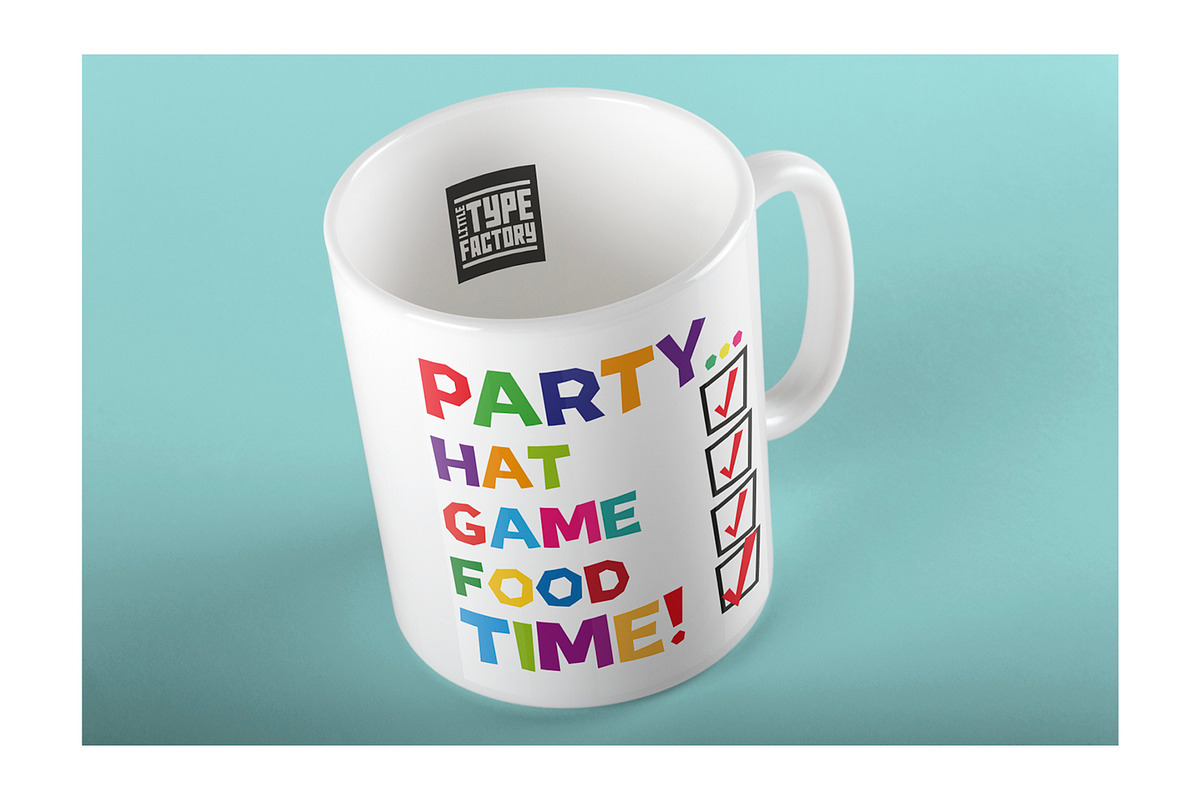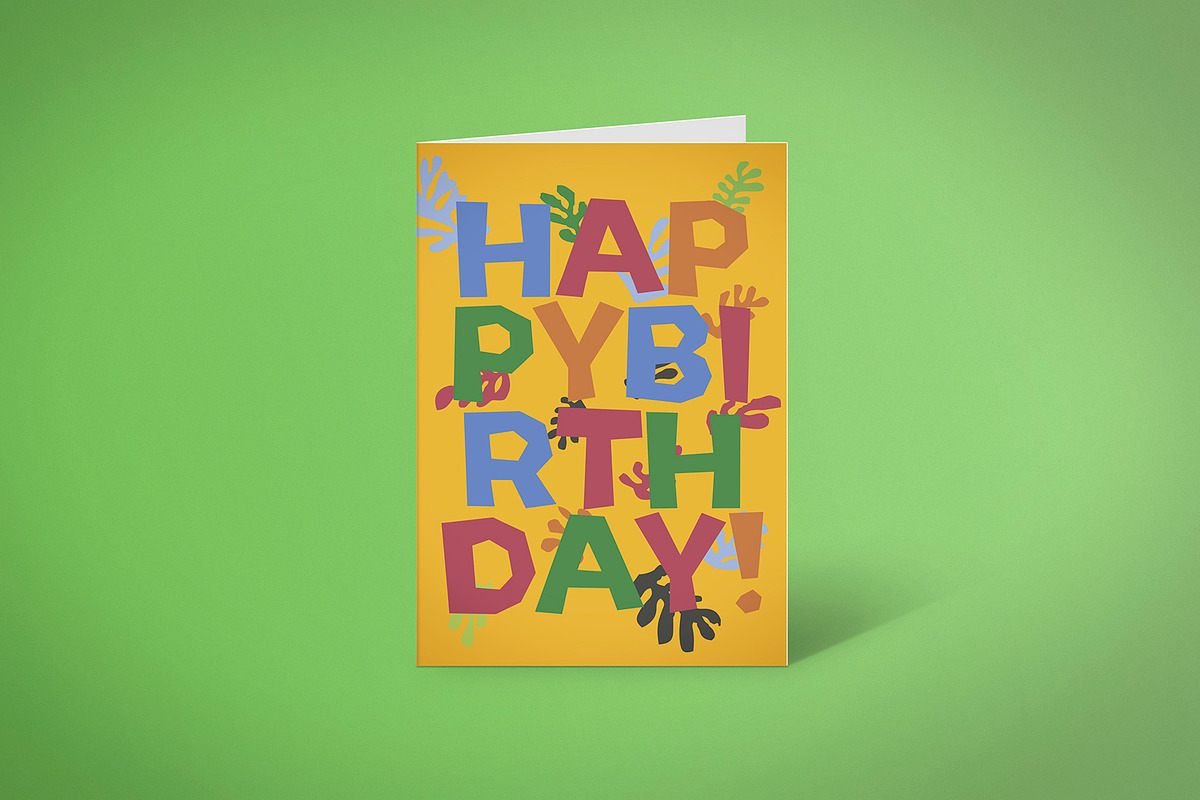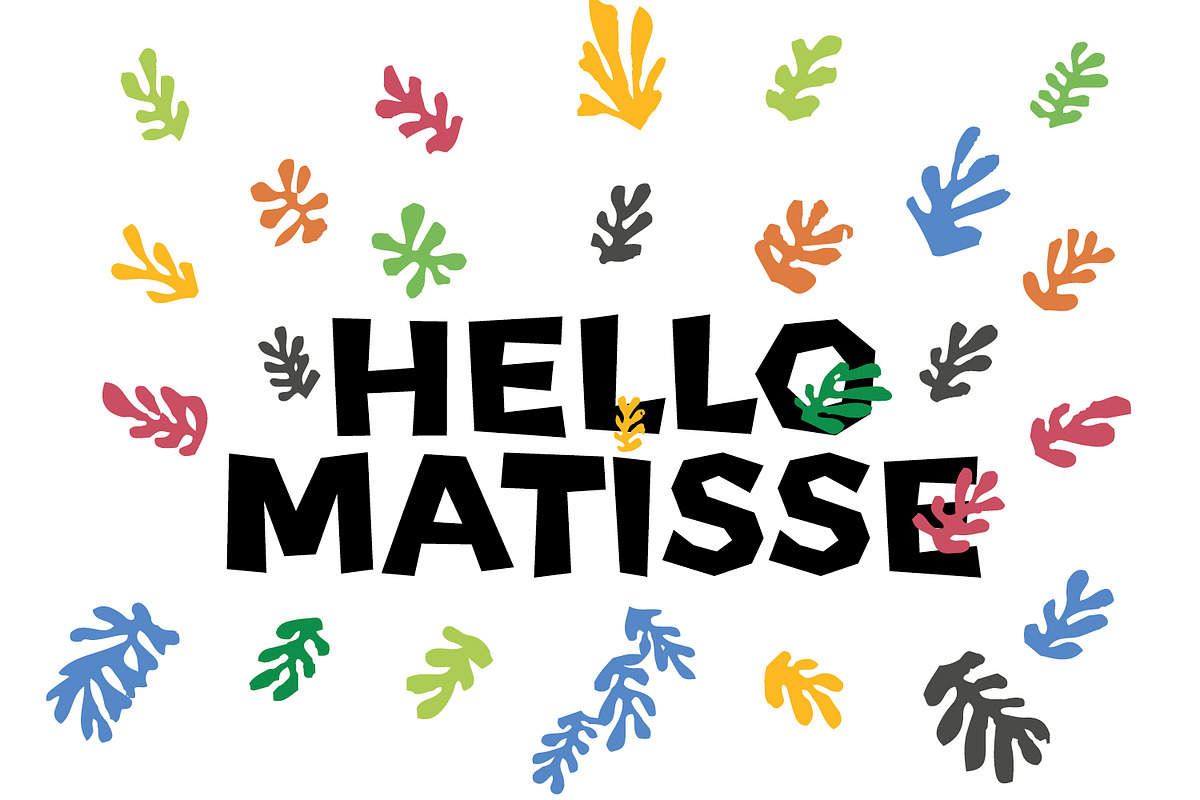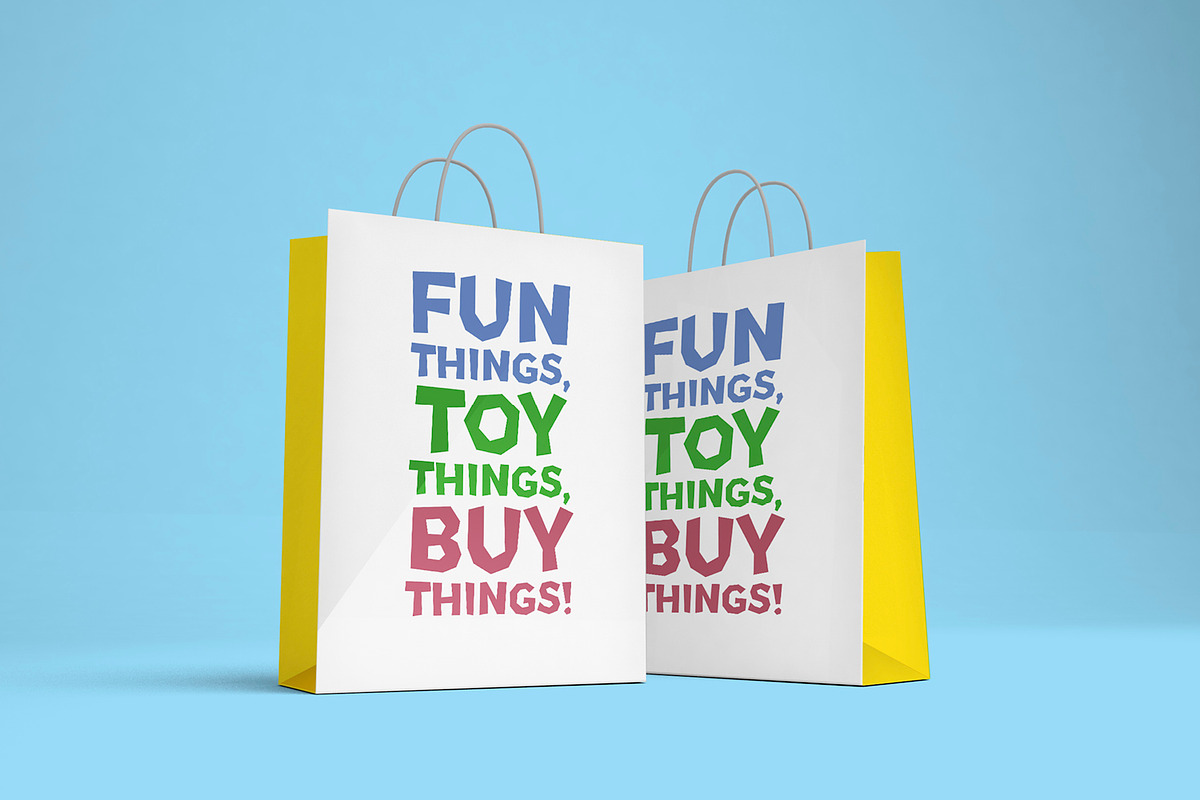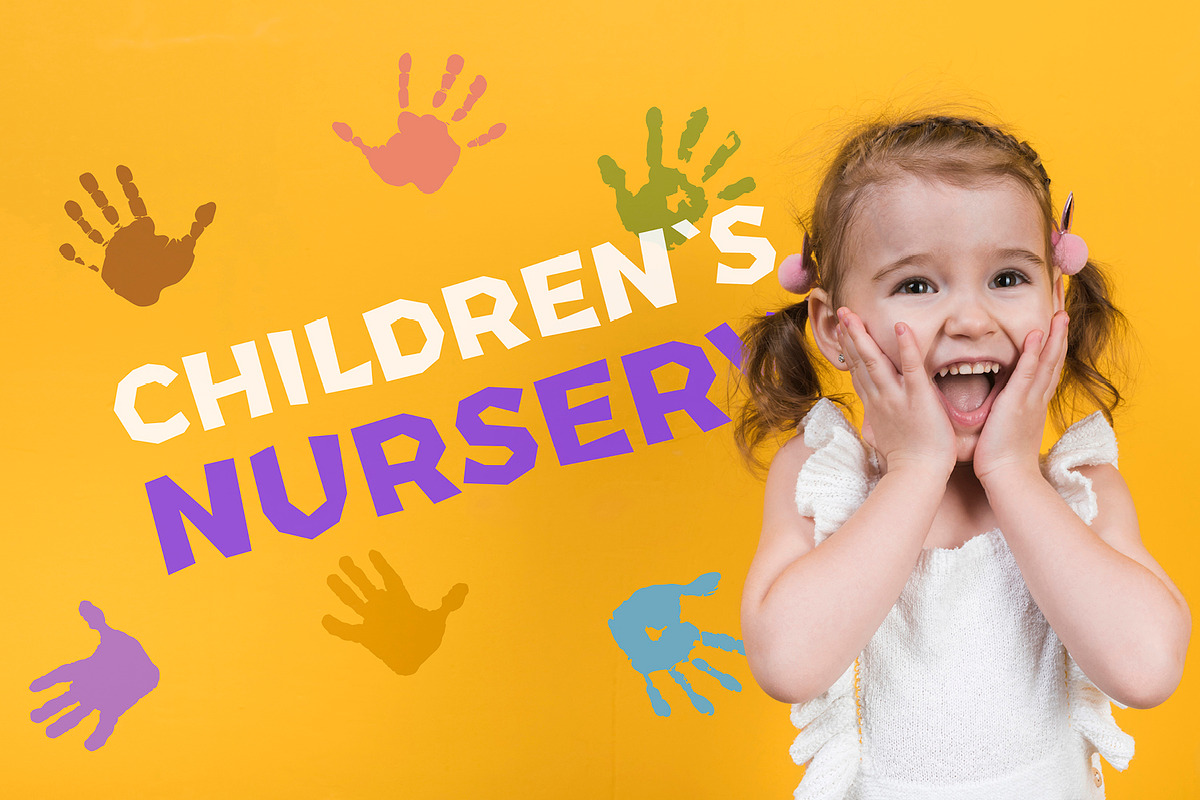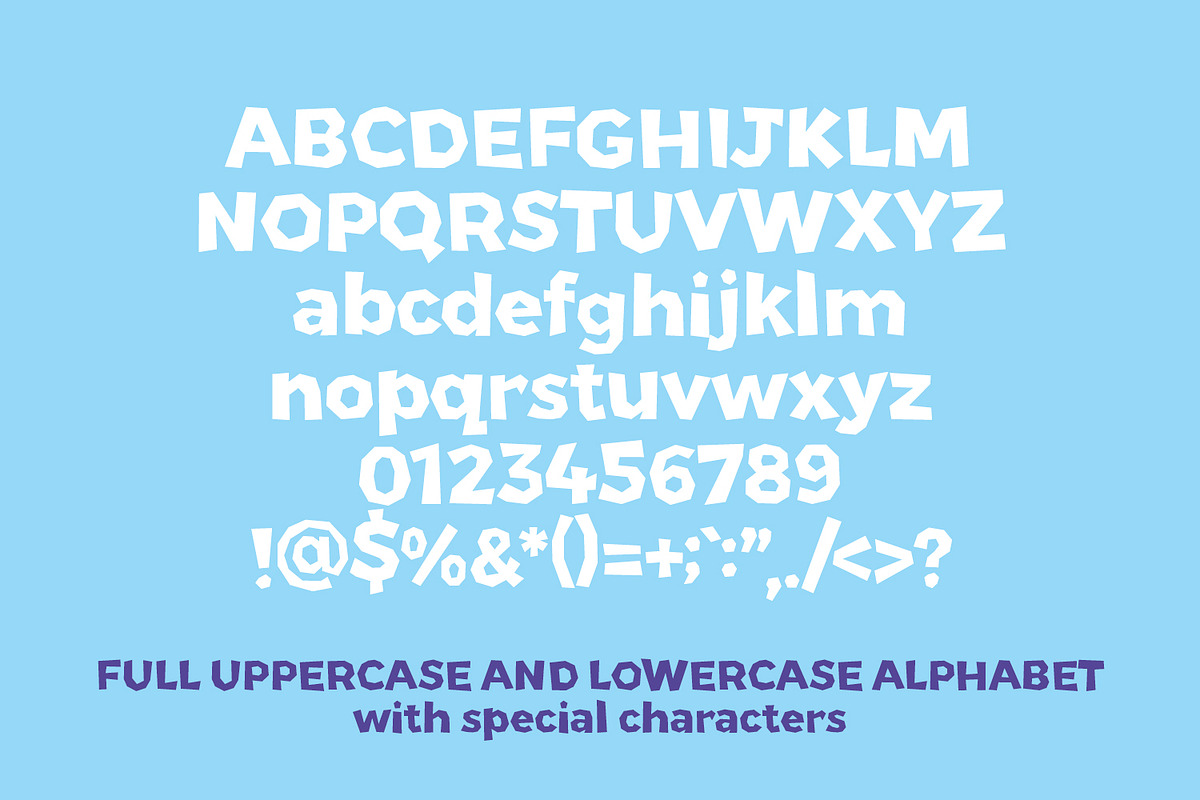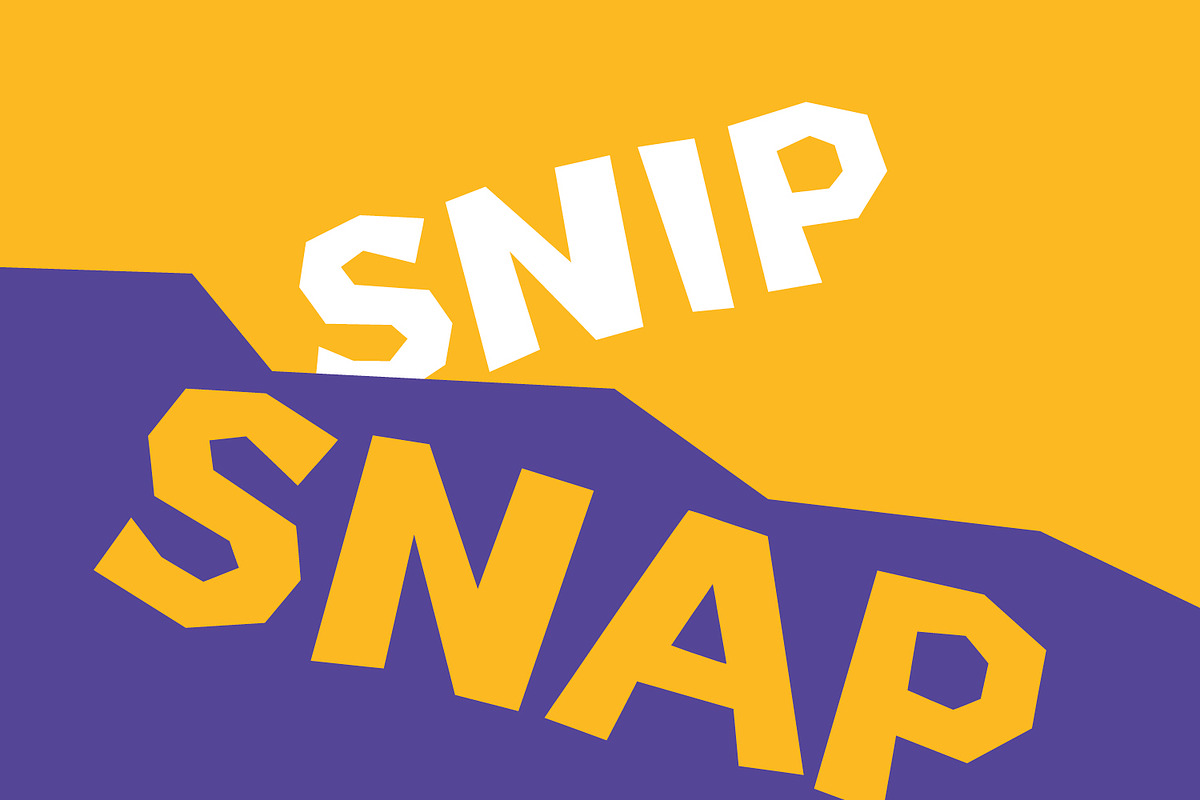
Papier Couper - a papercut style font
Papier Couper font. A paper cut style typeface. Fun and bold and designed for display usages. Great for headings, titles and quotes. Anywhere you want to introduce some character and something unique. Works really well on products from t-shirts to mugs and bags to cushions!
Full uppercase, lowercase and special characters. Includes the full European character set including western, central and south eastern glyphs.